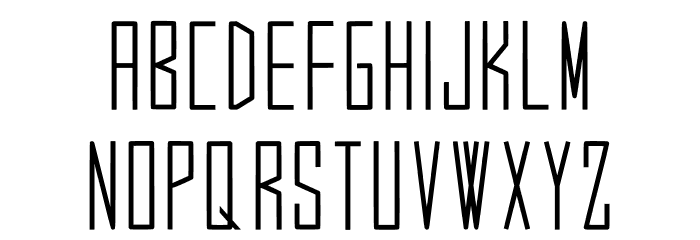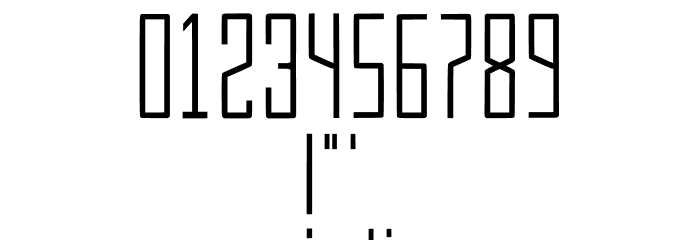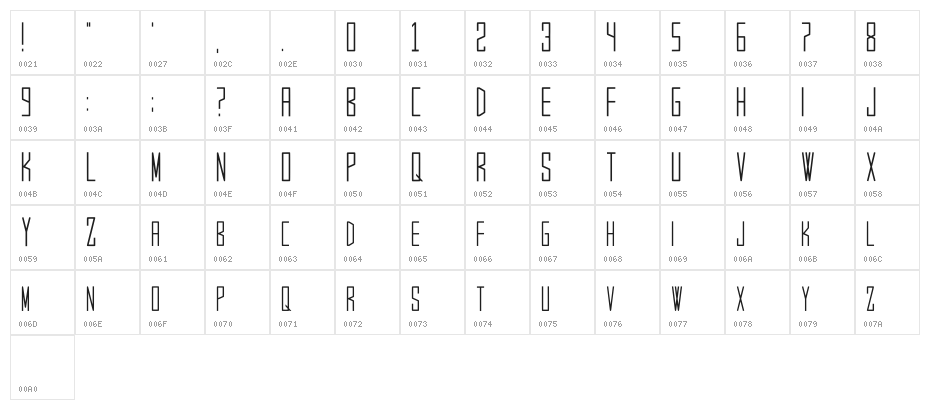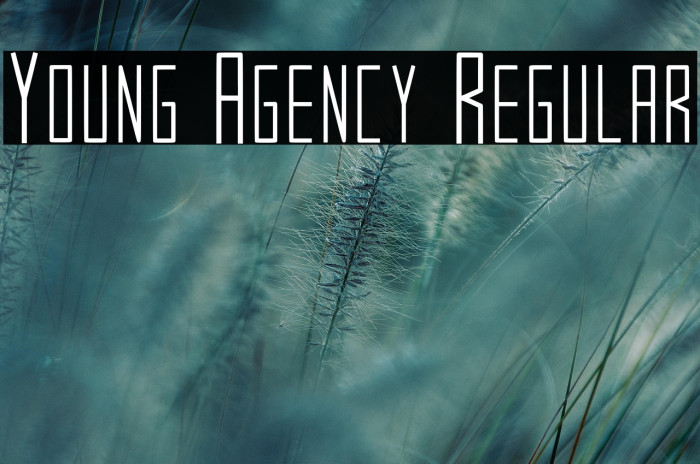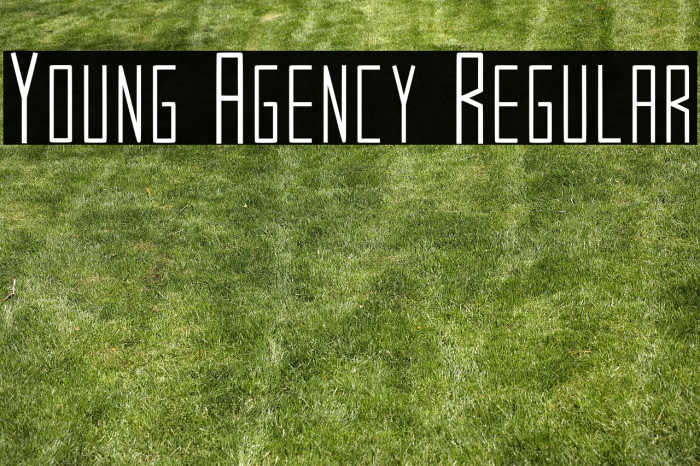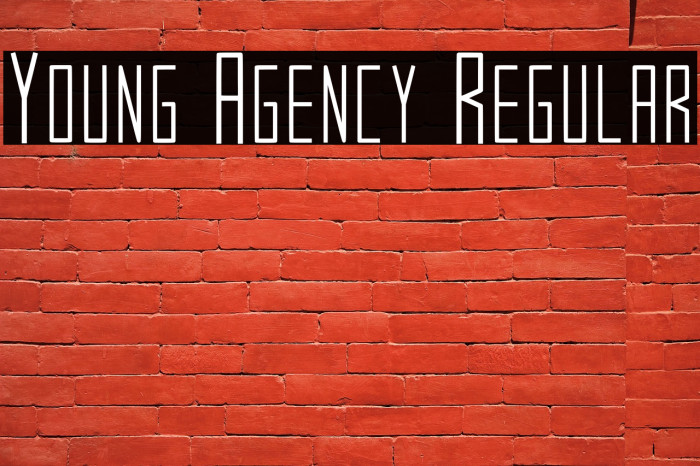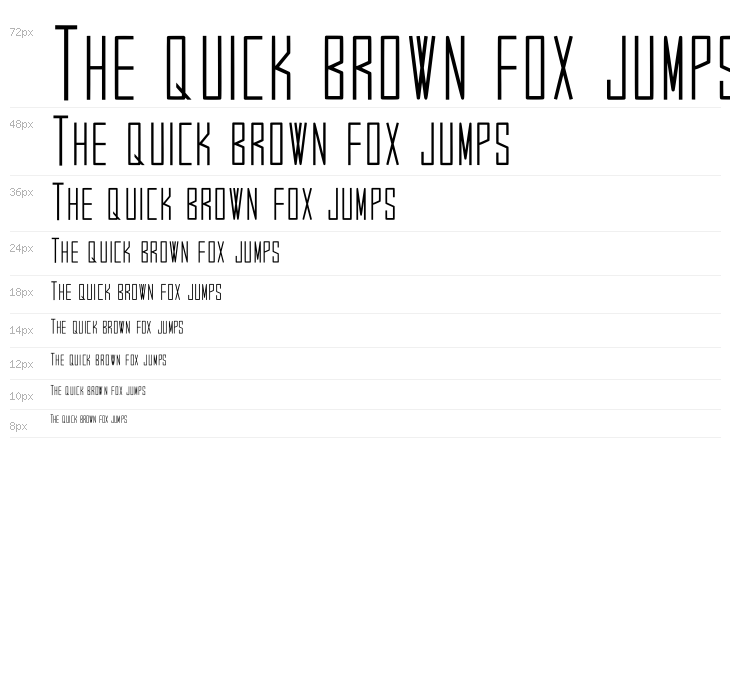
Young Agency Regular Font
This font features a modern, geometric design with elongated, narrow characters that convey a sleek and sophisticated look. The uppercase letters are tall and slender, with sharp angles and clean lines, creating a sense of elegance and precision. The lowercase letters maintain a consistent style, complementing the uppercase with their minimalist aesthetic. Numbers are equally streamlined, ensuring uniformity across all characters. The special characters, including punctuation marks, are designed to match the overall style, maintaining the font's cohesive appearance. This font's unique structure makes it ideal for projects that require a contemporary and stylish touch.
A modern, geometric font with elongated, narrow characters and a sleek design.